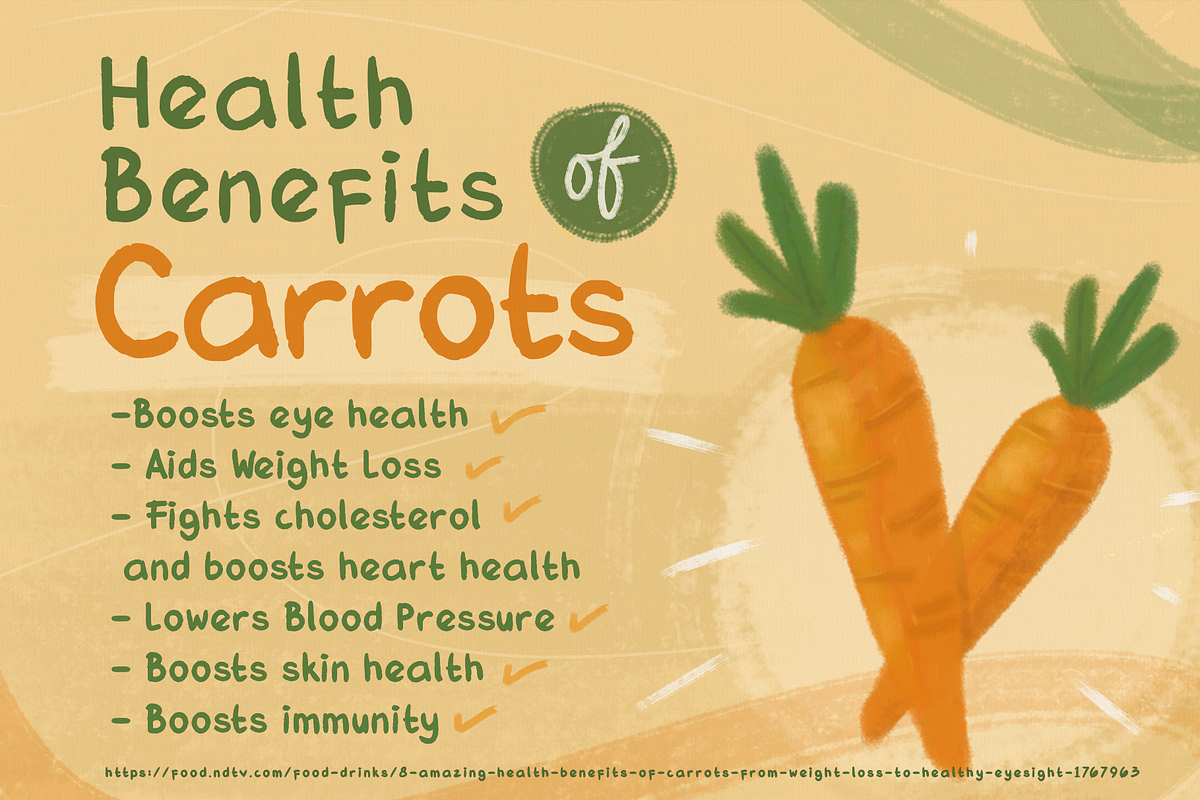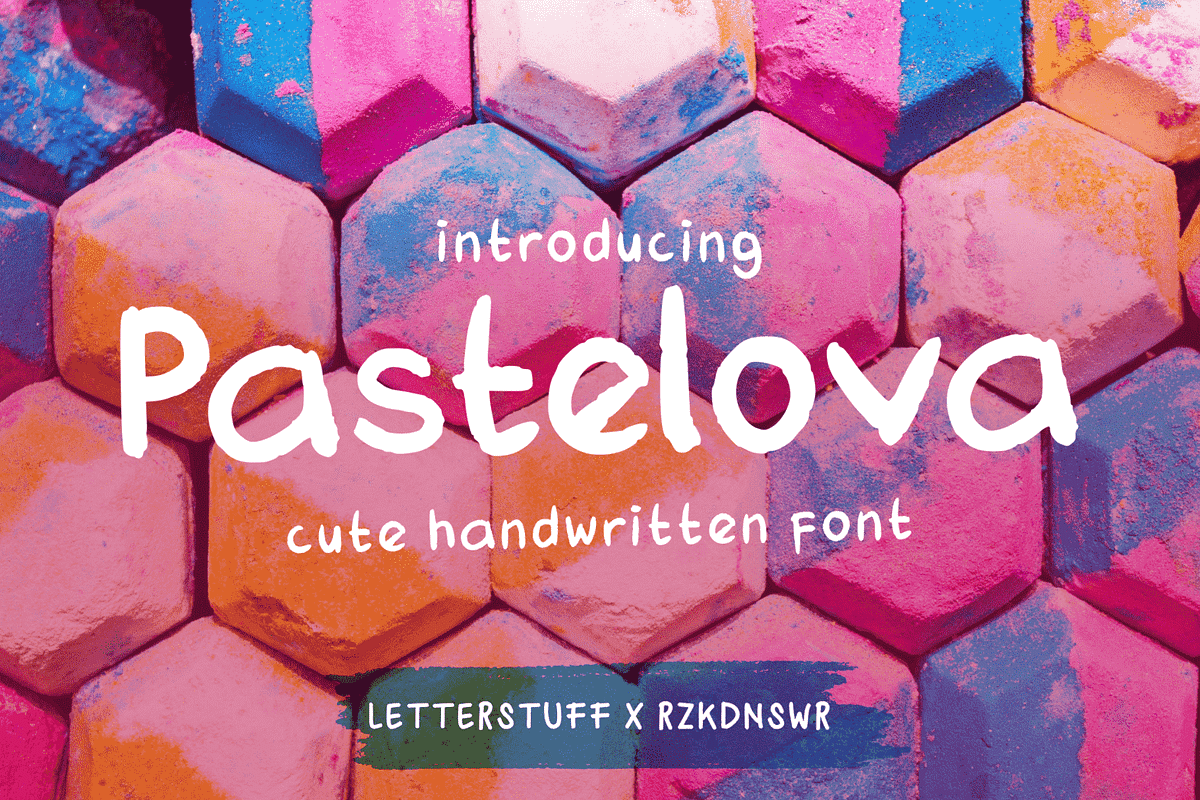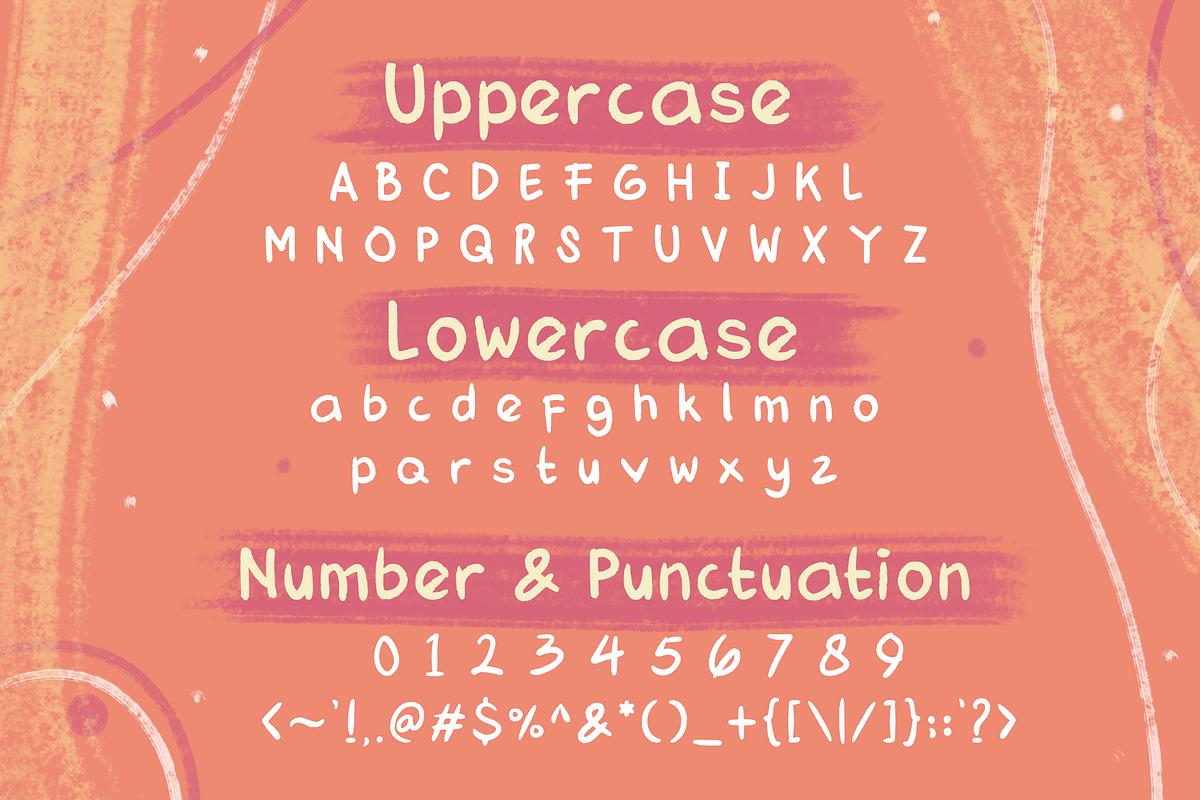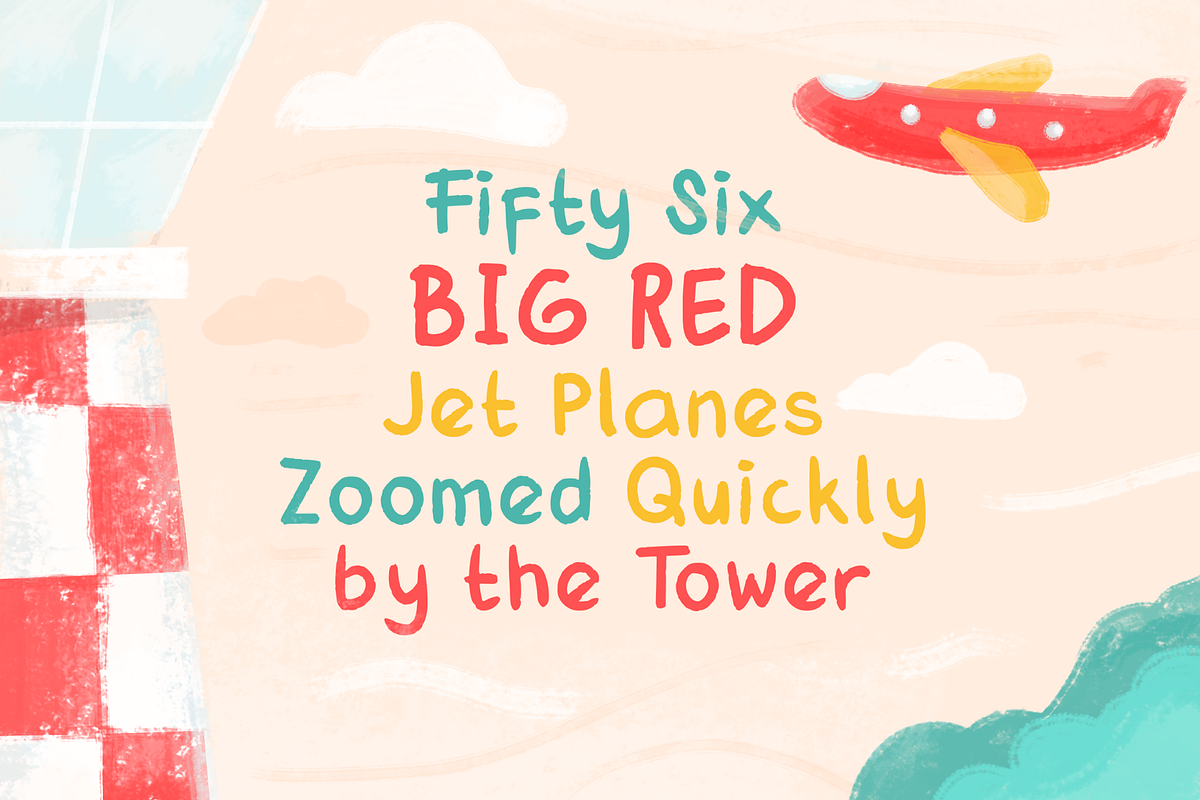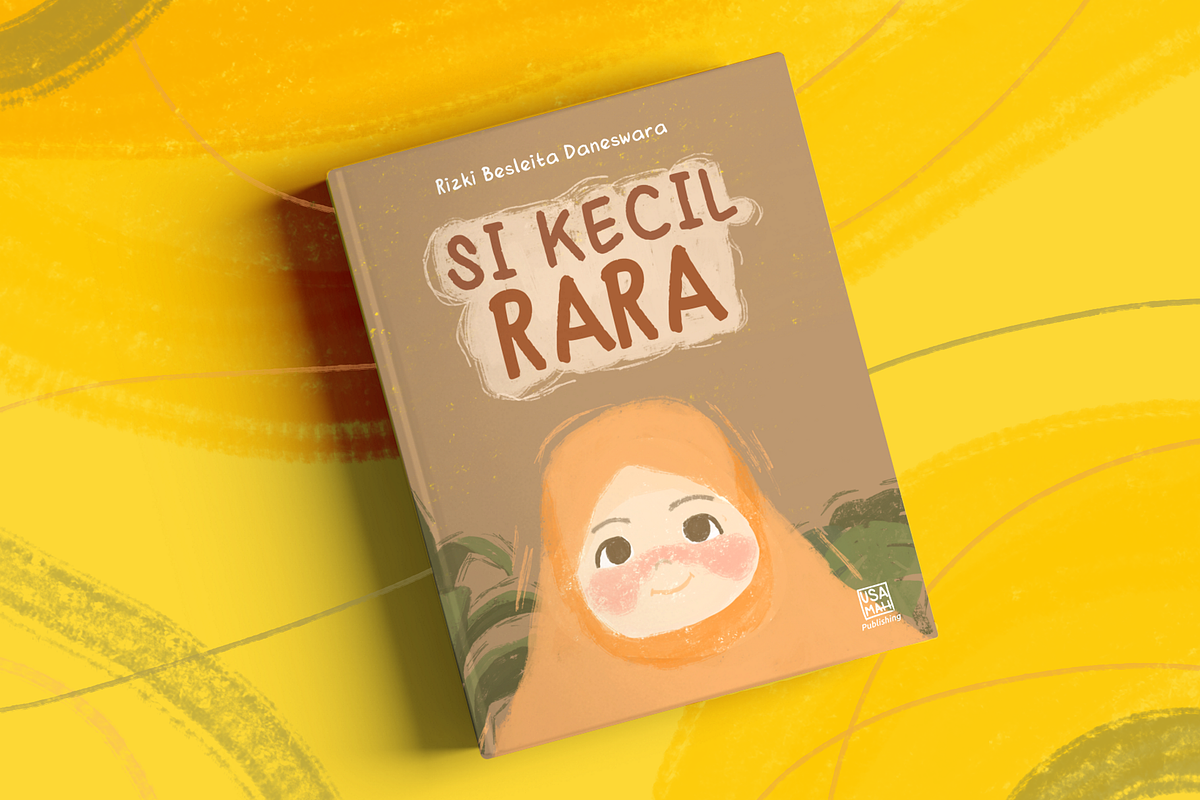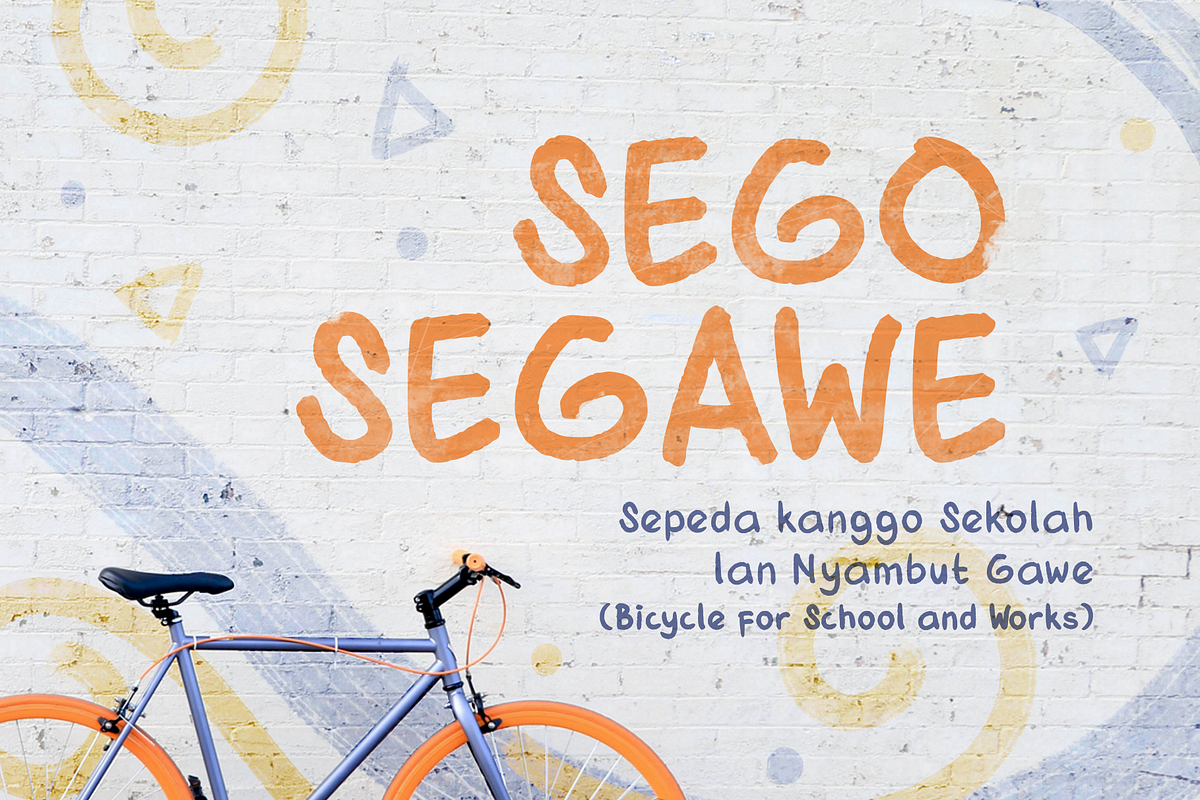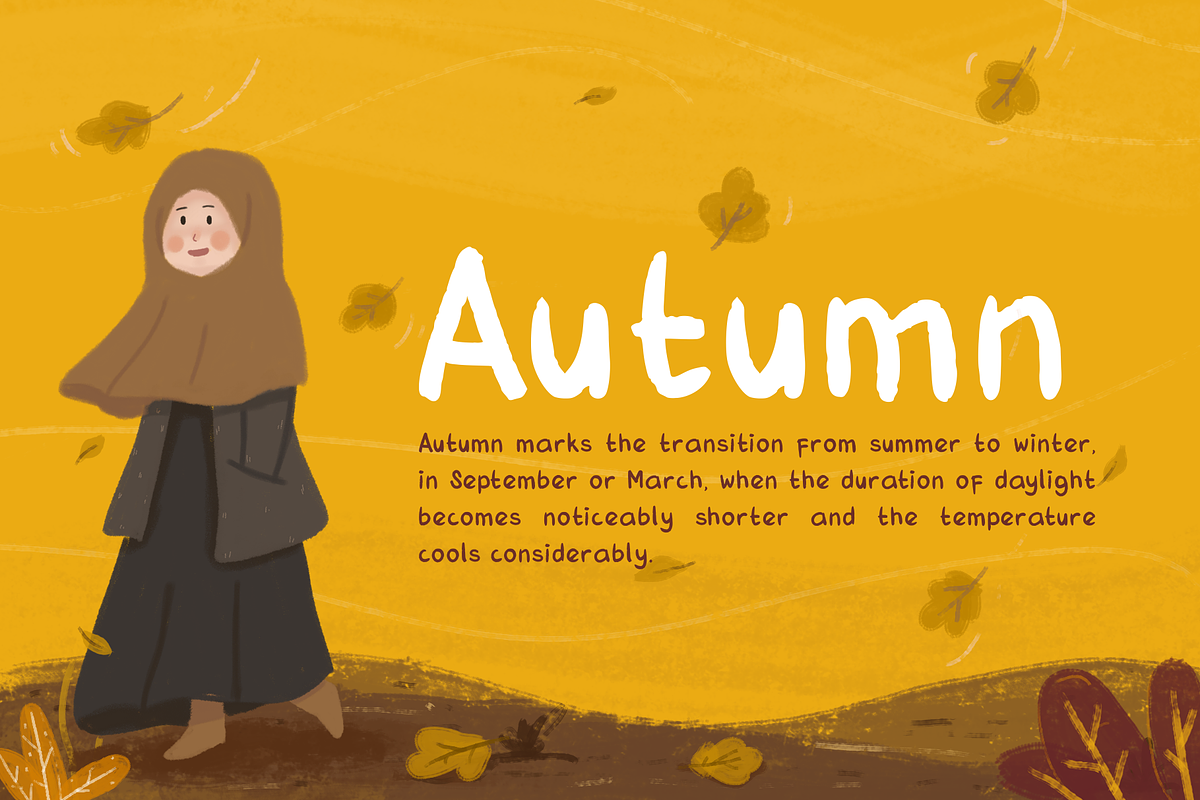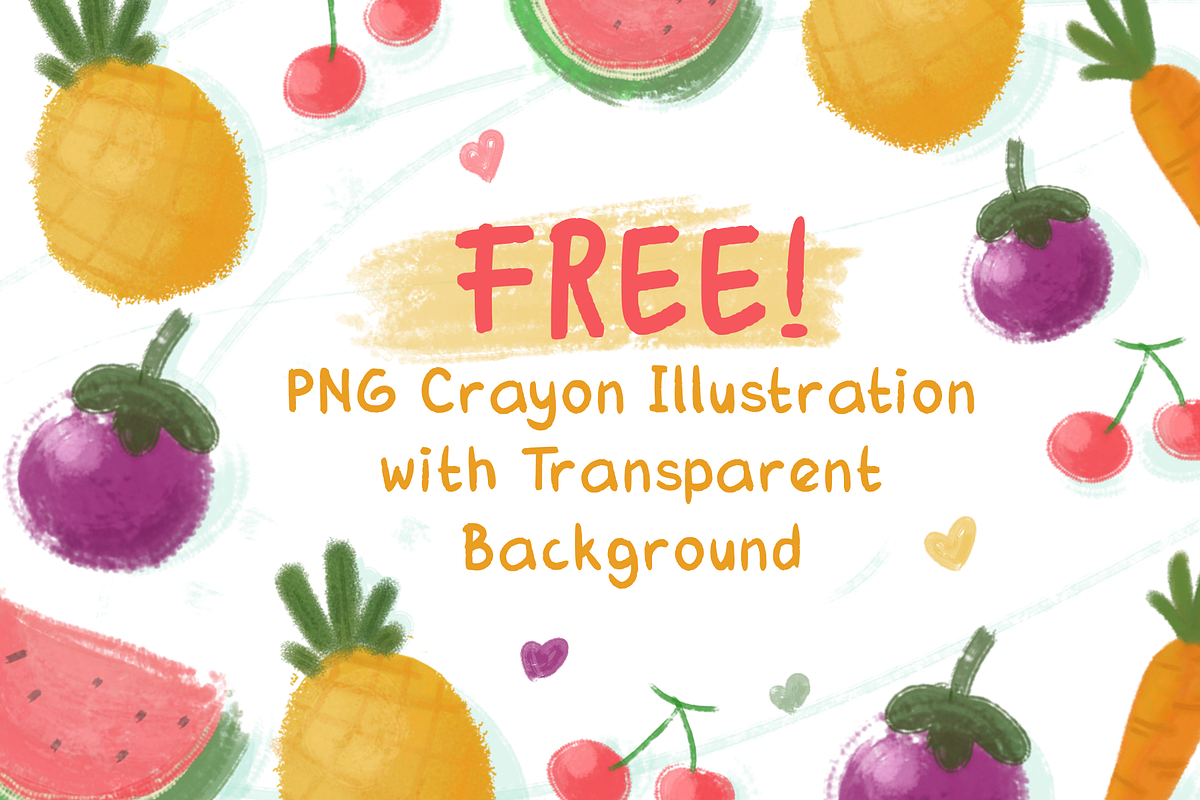
Pastelova | Handwritten Font
Hello everyone! Introducing our new cutest font, Pastelova in collaboration with Rizki Daneswara, inspired by children hand writing with crayon. Cute and so much fun. This font is perfectly match to your fun and cheerful design such as children storybook, social media post, tshirt, birthday invitation, and so on